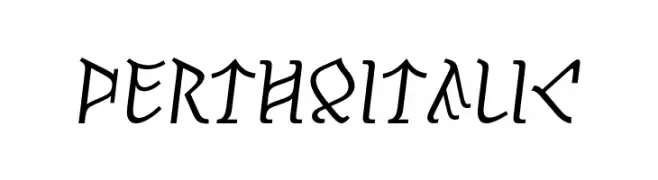
An elegant, condensed font with tall, slender characters and delicate curves.
A dotted, decorative font with a playful and modern aesthetic.
A bold, playful font with a hand-drawn, irregular style.
An edgy, angular font with a hand-drawn, graffiti-inspired style.
A bold, geometric font with a modern, digital aesthetic.
A bold, italic font with a dynamic, modern style and sharp angles.
A bold, handwritten-style font with a casual, marker-like appearance.
A dynamic, cursive script font with fluid, expressive strokes.
A playful, whimsical font with dynamic strokes and charming character details.
A modern, clean sans-serif typeface with excellent readability.